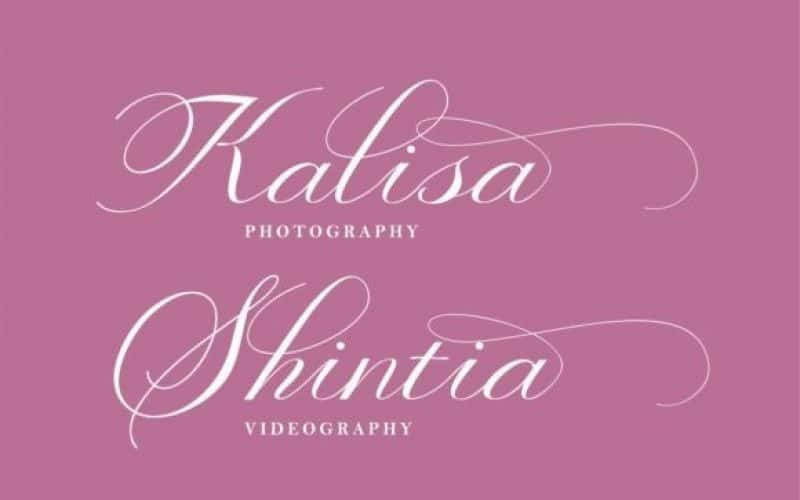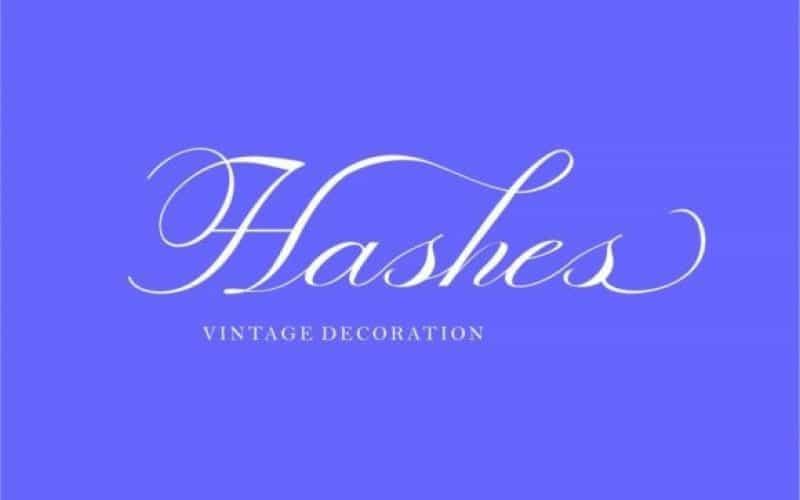
Valetia Calligraphy Font is a calligraphy hand-drawn typeface featuring beautiful swashes. It has lovely ligatures and alternates that are perfect for any creative design. This handmade font will make your design has a beautiful natural touch for each details. It is perfect for any design project as Invitation,logo, book cover, craft or any design purposes.